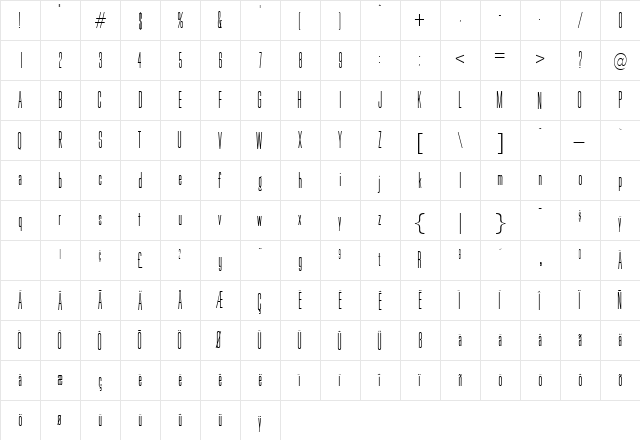
Goldhawk Regular
Design Context for Goldhawk Typeface
Goldhawk offers clean, dependable letterforms without strong stylistic allegiance, making it a practical choice for designers who need flexibility.